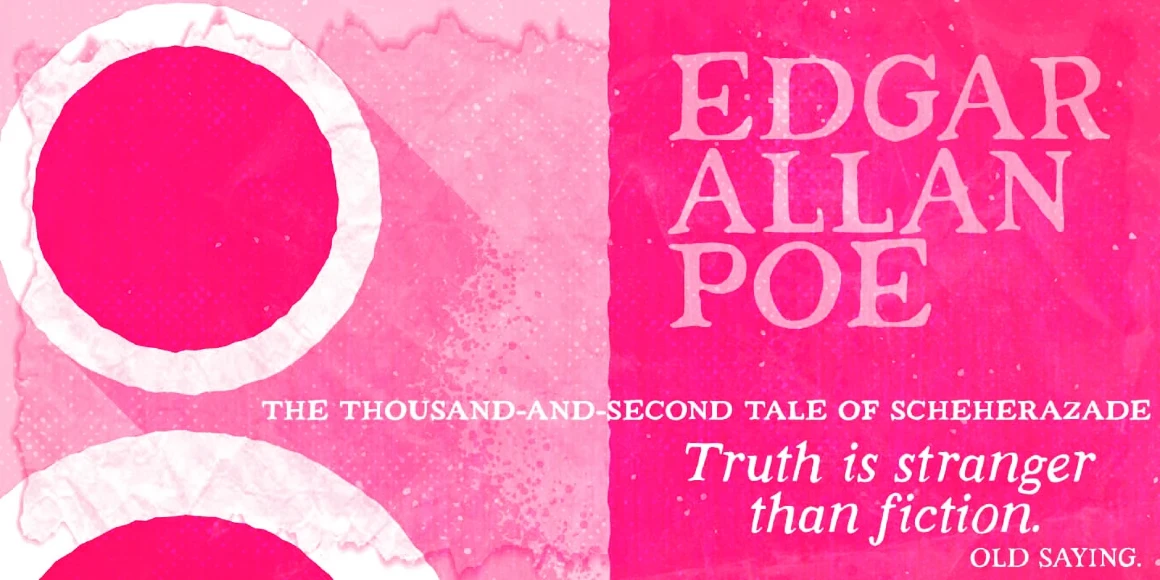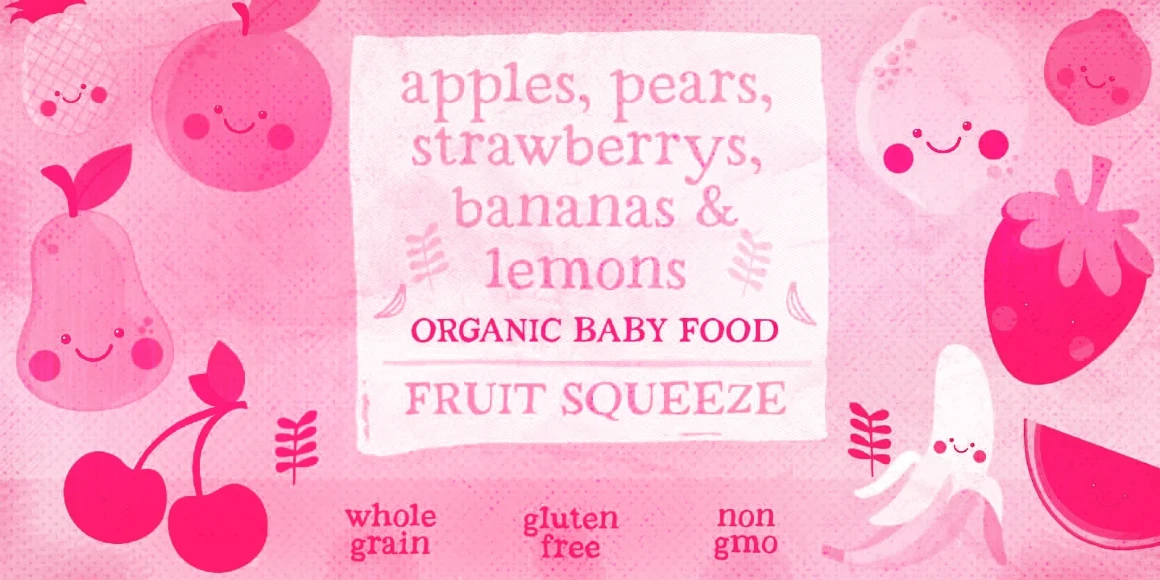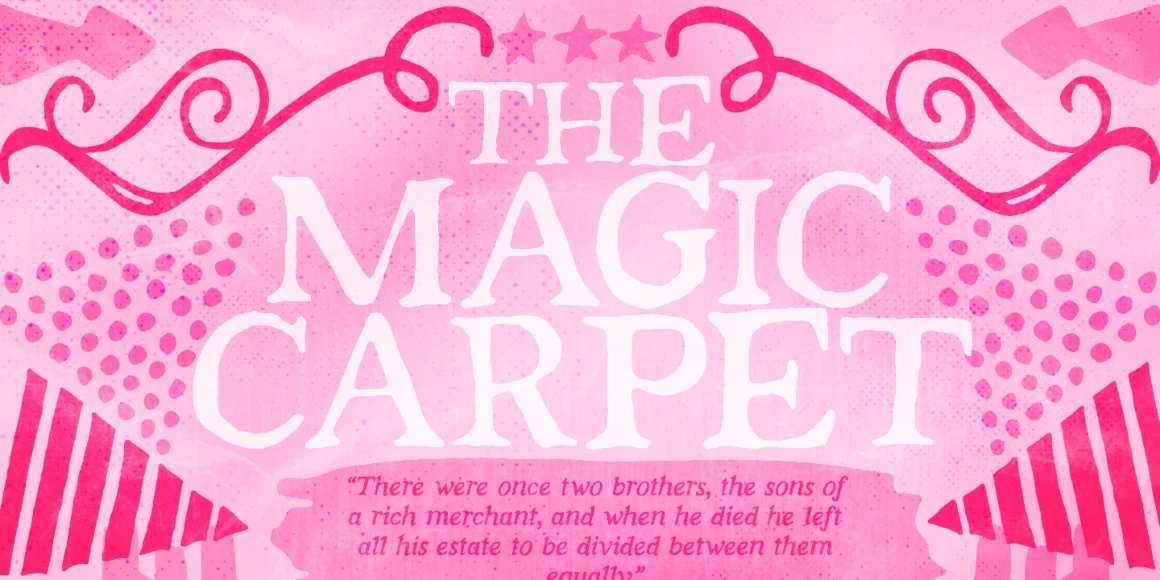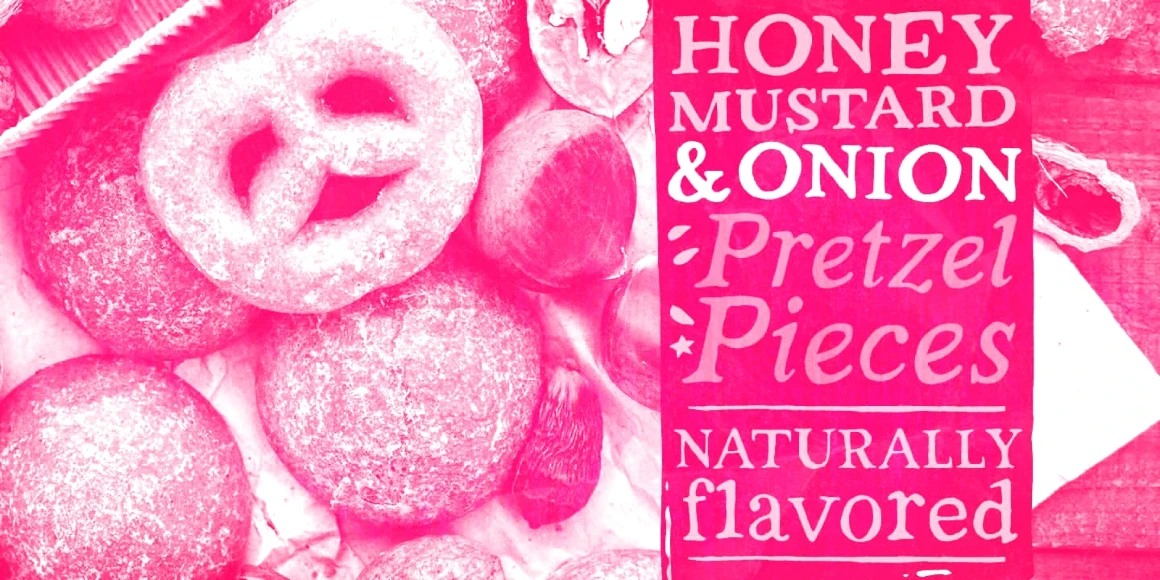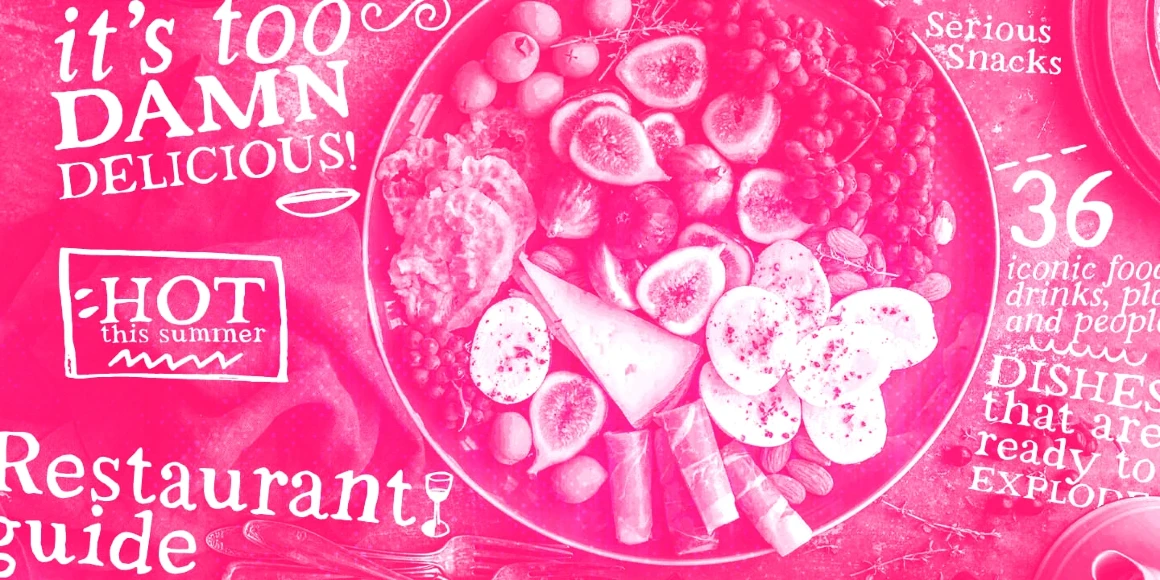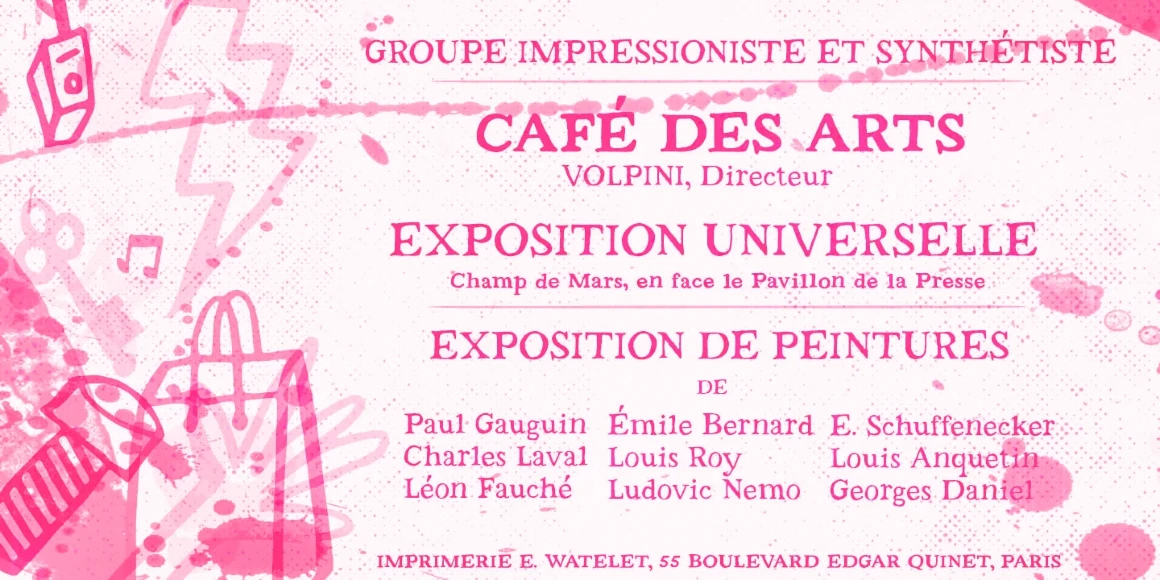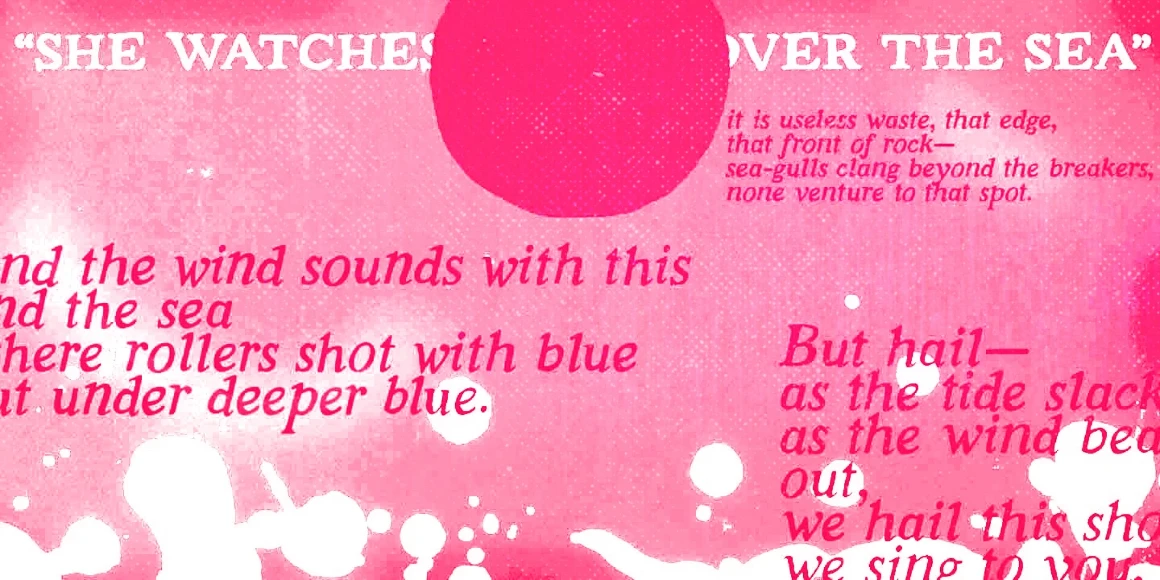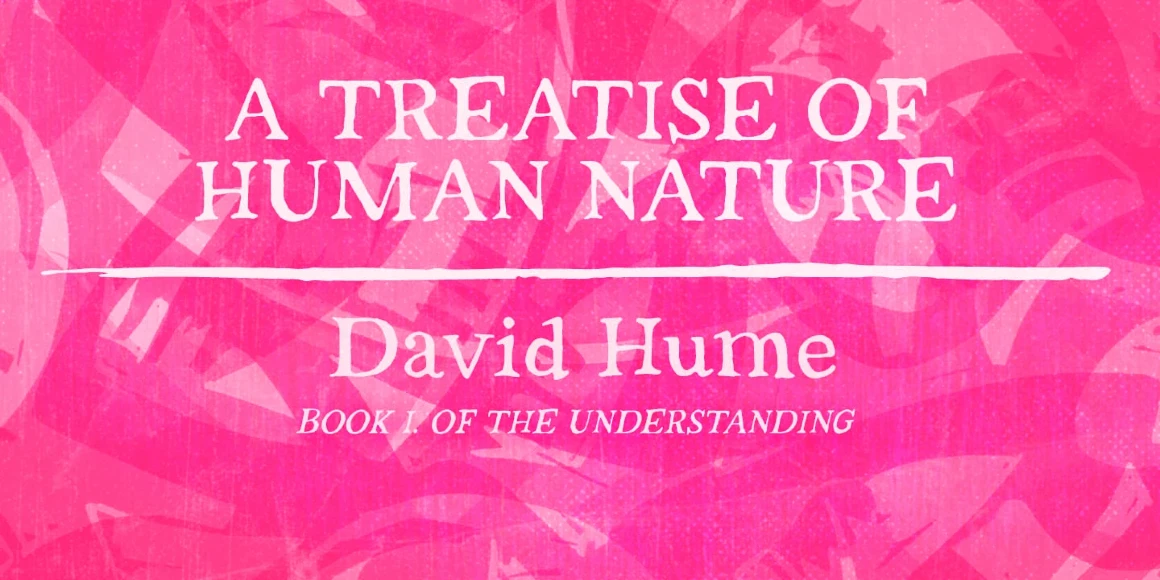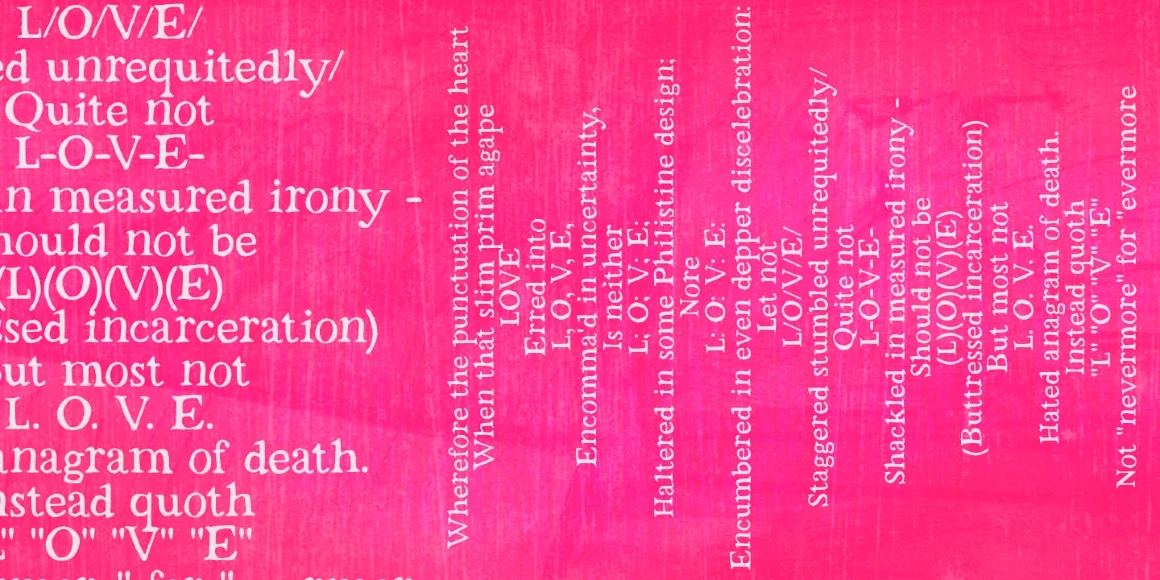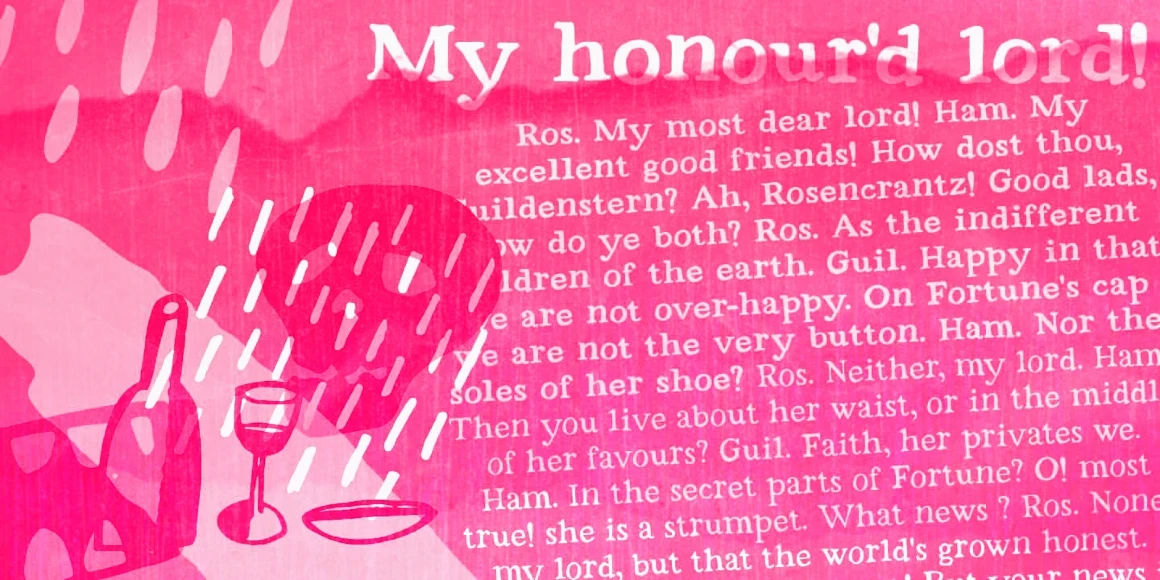
Strange Times
Strange Times is a hand-drawn — or is it handwritten — serif family. Either way, it’s a pretty handy family​​ with a generous touch of quirkiness and packed with lowercase alternates for a solid organic feel. Available in 3 ​fresh ​cuts — filled with cleverly cycling alternates — plus a sweet picture font to add originality to your design. It’s ideal for personality-filled book covers, album art, party invitations, food packaging, film titles, and game design. Strange Times are here. Let’s roll.